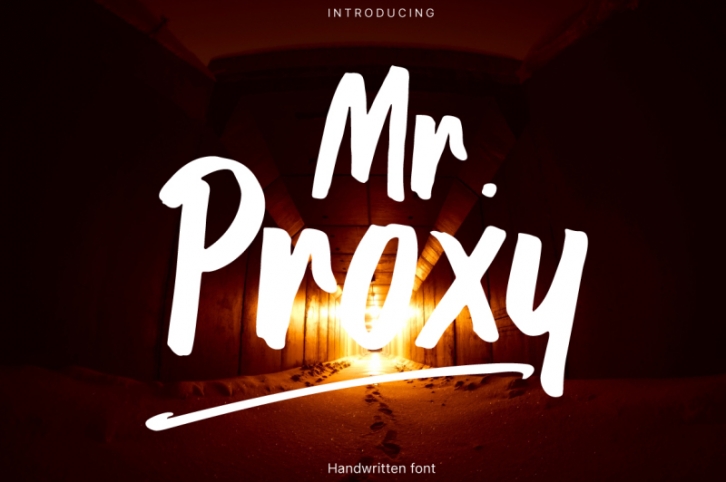
Mr.Proxy
It's handwritten script font.
This font are perfect for wedding invitation or your blog. Also with their help, you can create a logo or beautiful frame for your home.
Or just use for your small business, book covers, stationery and more.
Comes with upper and lowercase characters, large set of punctuation glyphs, numerals, and supports international languages.
Includes hand-made swashes.